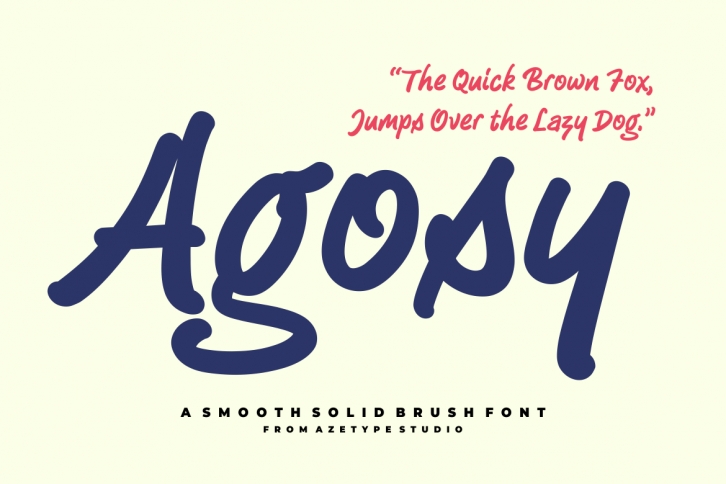
AZ Agosy is a smooth solid brush font. Its casual charm makes it appear wonderfully down-to-earth, readable, and ultimately incredibly versatile. Solid Craft will look outstanding in any context, whether it’s being used on busy backgrounds or as a standalone headline!